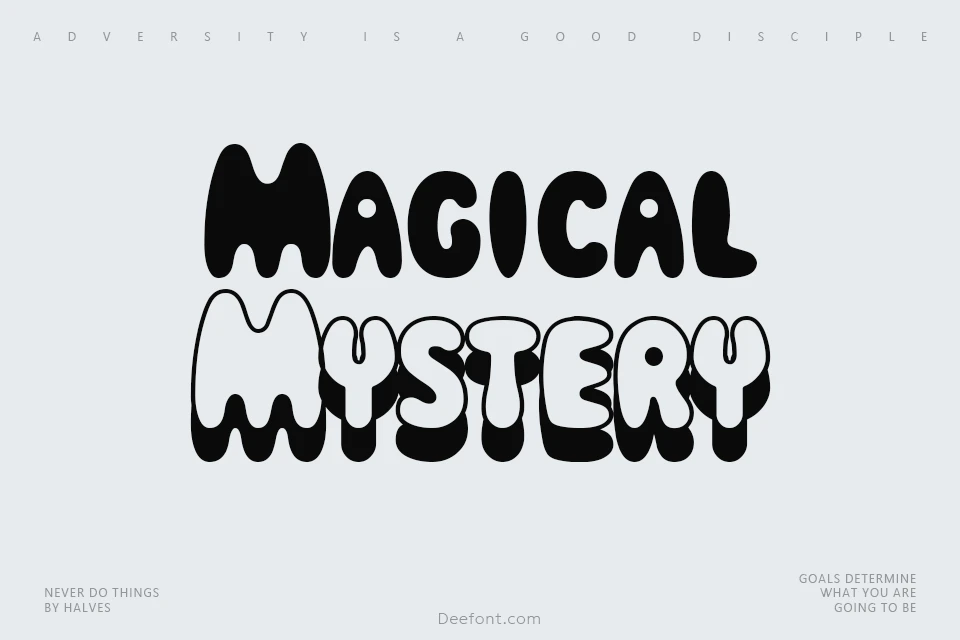
Magical Mystery Tour Font
Magical Mystery Tour Font font is a bold and playful typeface inspired by the iconic lettering used on The Beatles’ 1967 record sleeve of the same name. This distinctive font family includes two main styles: Plain and Outline Shadow versions. Featuring rounded, bubbly characters with a uniform stroke width, the font conveys a whimsical and fun aesthetic that captures the psychedelic spirit of the late 1960s. The typeface includes 240 defined characters and supports multiple languages, making it versatile for various creative projects. Its bold, rounded design and retro appeal make it particularly suitable for projects seeking to evoke a nostalgic, playful atmosphere.